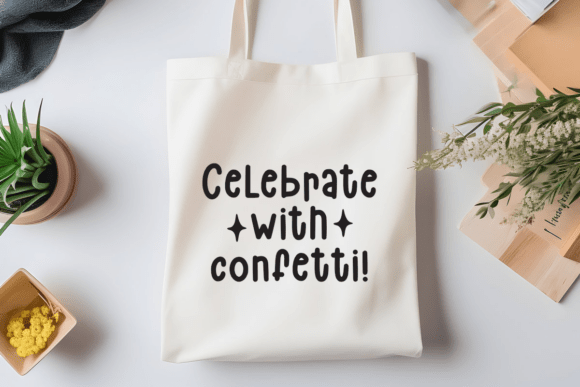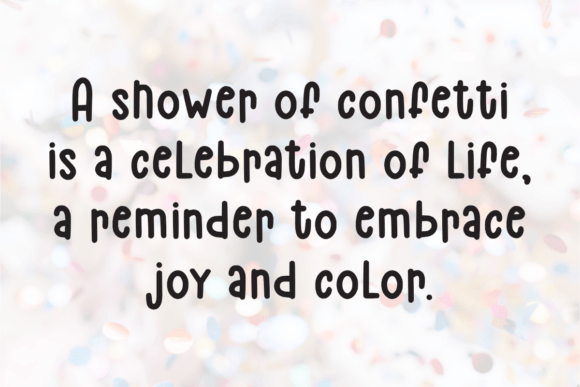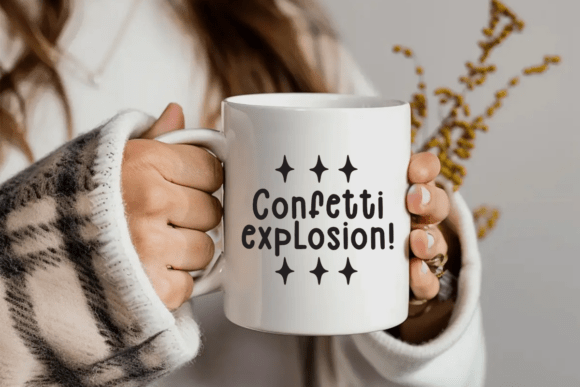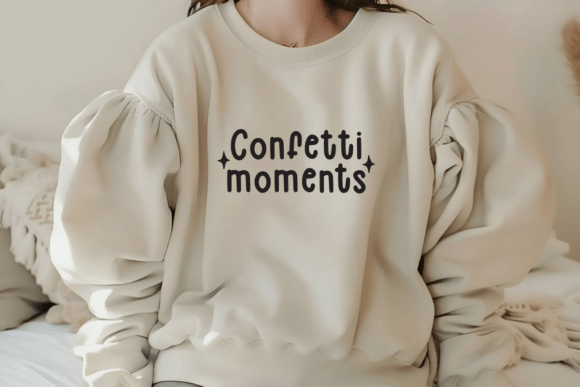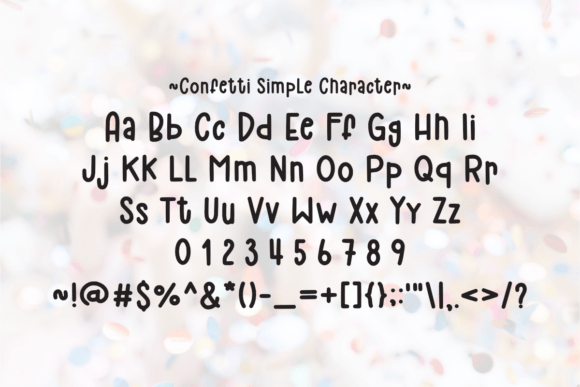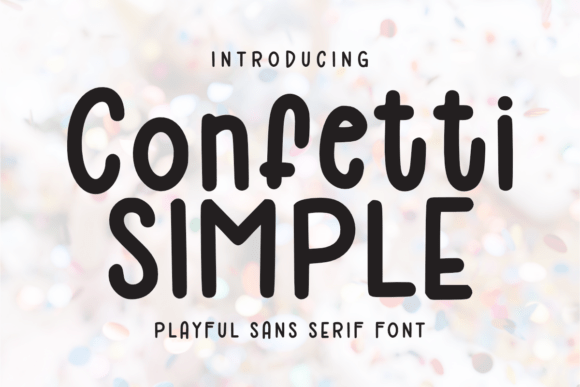
Introducing Confetti Simple Font: The Ultimate Choice for Playful and Friendly Designs
Are you tired of using the same old fonts for your designs? Do you want to add a touch of playfulness and friendliness to your branding, children’s books, or social media posts? Look no further than Confetti Simple Font, a cute and quirky sans serif font that’s sure to radiate positivity and capture the attention of your audience.
What Makes Confetti Simple Font So Special?
Confetti Simple Font is a beautifully crafted font that features rounded curves and a bouncy flow, making it perfect for designs that require a lighthearted and friendly touch. Its sans serif design ensures that the font remains clean and easy to read, while the rounded edges add a touch of whimsy and approachability.
Perfect for Playful Branding
Confetti Simple Font is an excellent choice for brands that want to convey a sense of fun and playfulness. Whether you’re launching a new product, rebranding your company, or simply want to add some personality to your marketing materials, this font is sure to deliver. Its unique and quirky design will help your brand stand out from the crowd and leave a lasting impression on your customers.
A Great Choice for Children’s Books
Confetti Simple Font is also an excellent choice for children’s books, where a playful and engaging font can make all the difference. The font’s rounded curves and bouncy flow will appeal to young readers and add a touch of magic to your story. Whether you’re a self-published author or a professional publisher, this font is sure to bring your book to life.
Elevate Your Instagram Posts
In today’s digital age, Instagram has become an essential platform for designers, crafters, and businesses to showcase their work and connect with their audience. Confetti Simple Font is a great choice for Instagram posts, where a visually appealing font can help increase engagement and attract new followers. Use it to add a touch of personality to your captions, quotes, or promotional posts.
Key Features of Confetti Simple Font
- Cute and quirky design: Confetti Simple Font features a unique and playful design that’s sure to capture the attention of your audience.
- Rounded curves and bouncy flow: The font’s rounded edges and flowing curves add a touch of whimsy and friendliness to your designs.
- Clean and easy to read: Despite its playful design, Confetti Simple Font remains clean and easy to read, making it perfect for body text and captions.
- Sans serif design: The font’s sans serif design ensures that it remains modern and sleek, while the rounded edges add a touch of playfulness.
Tips and Tricks for Getting the Most Out of Confetti Simple Font
- Experiment with different colors: Confetti Simple Font looks great in a variety of colors, so don’t be afraid to experiment and find the perfect hue for your design.
- Mix and match with other fonts: Confetti Simple Font pairs well with other fonts, so try combining it with a serif font for added contrast and visual interest.
- Use it consistently: To get the most out of Confetti Simple Font, use it consistently across all your designs. This will help create a cohesive brand identity and make your designs instantly recognizable.
Confetti Simple Font is a unique and playful font that’s perfect for designers, crafters, and businesses looking to add a touch of friendliness and approachability to their designs. With its rounded curves, bouncy flow, and clean sans serif design, this font is sure to radiate positivity and capture the attention of your audience. So why wait? Download Confetti Simple Font today and start creating playful and engaging designs that will leave a lasting impression on your audience.